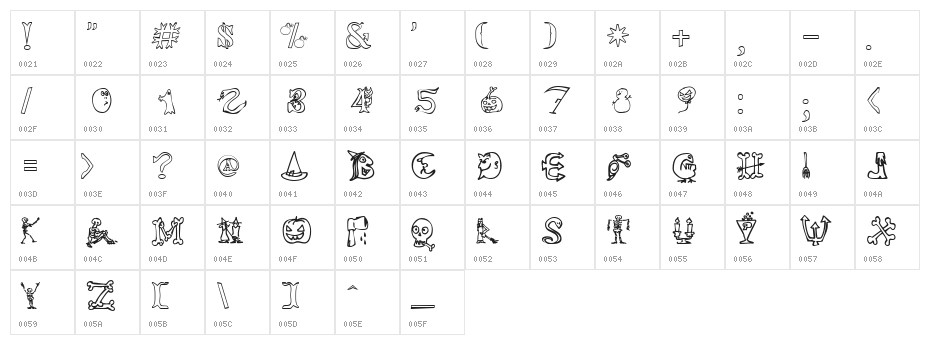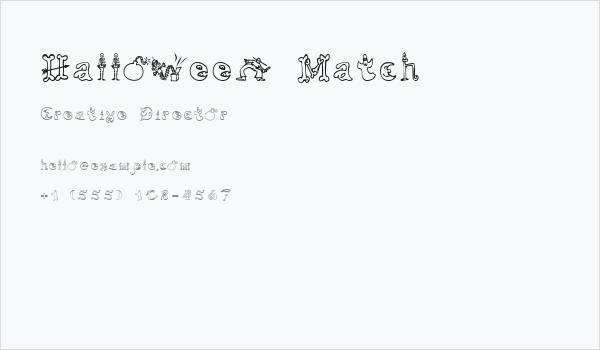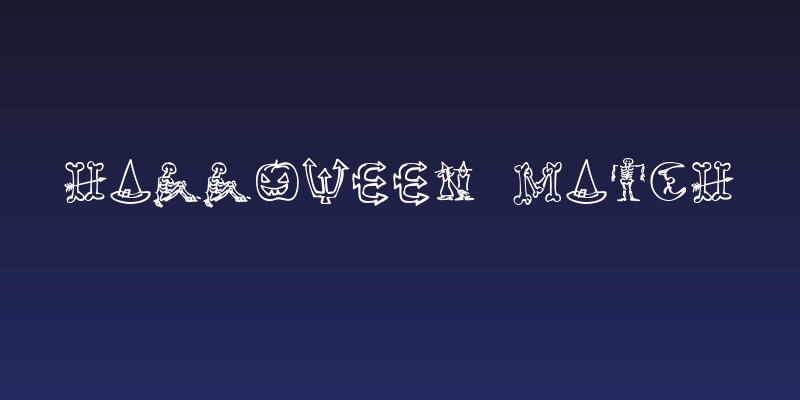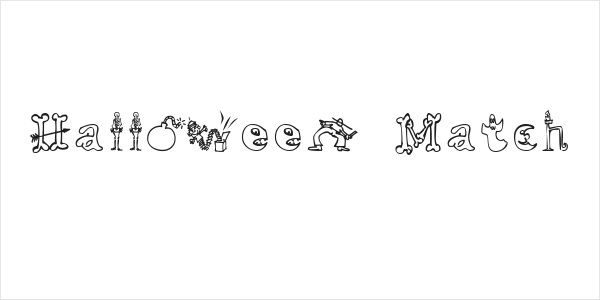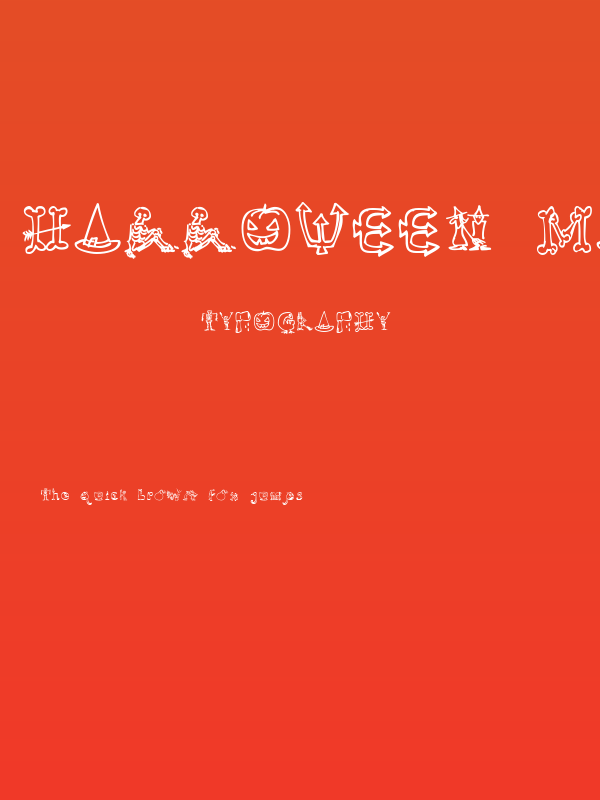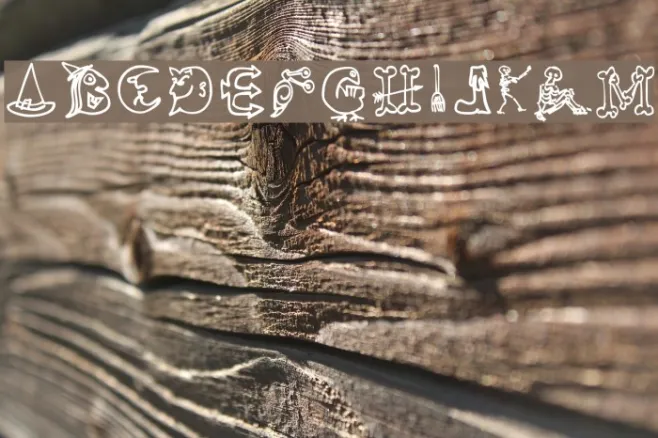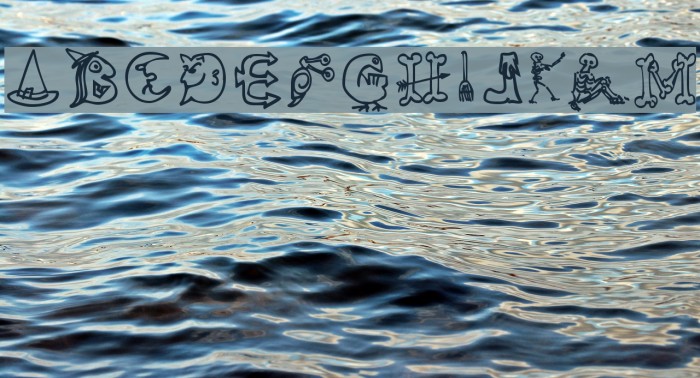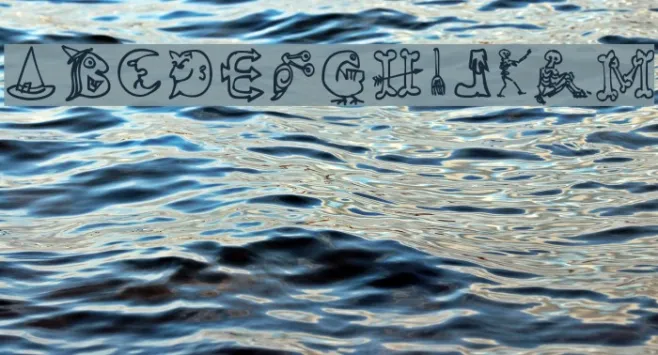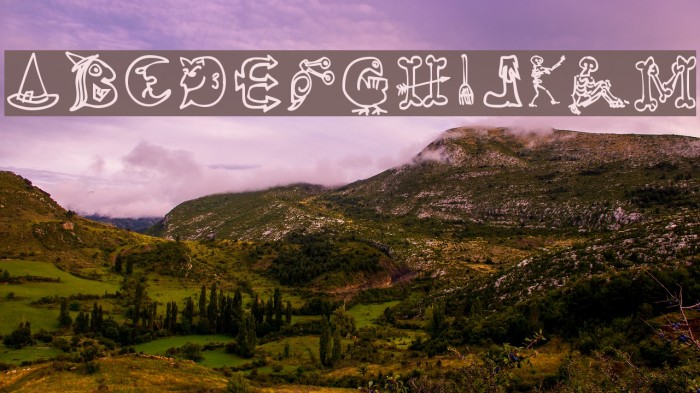
Halloween Match Font
Halloween Match Description
This font is a playful and spooky design, perfect for Halloween-themed projects. Each character is uniquely crafted with elements like witches' hats, skeletons, pumpkins, and other eerie motifs. The uppercase letters are particularly elaborate, featuring intricate details that evoke a sense of fun and fright. The lowercase letters maintain the theme with slightly less complexity, ensuring readability while still capturing the Halloween spirit. Numbers and special characters are also creatively designed, incorporating elements like ghosts and bats. This font is ideal for creating eye-catching titles and decorations for Halloween events.